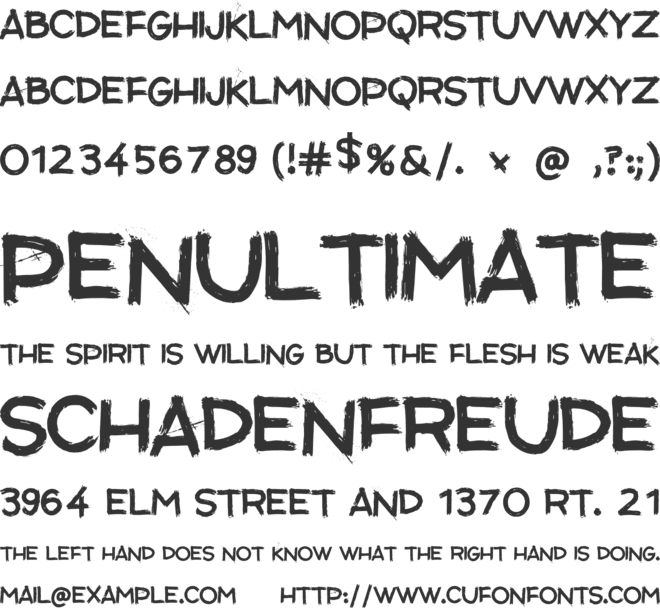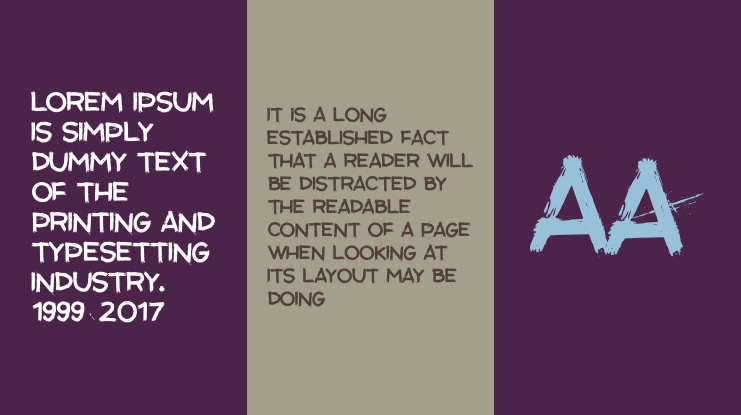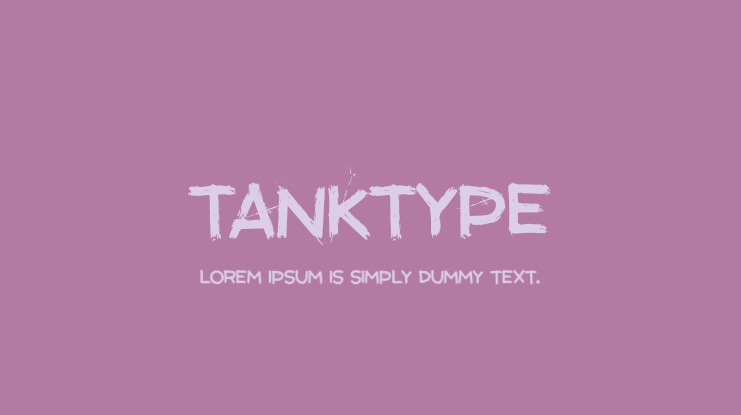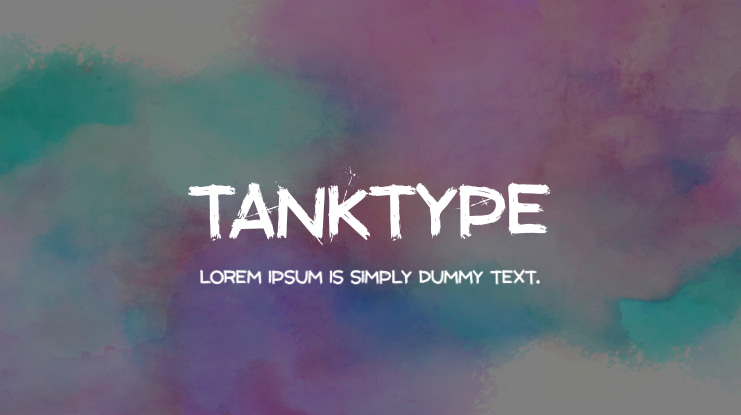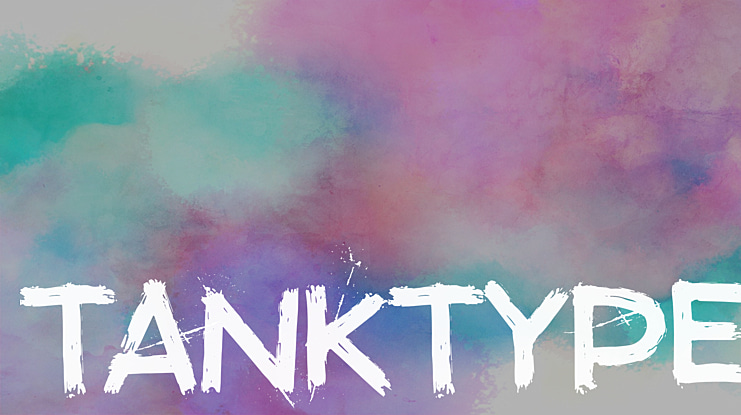
TANKTYPE Font
Tanktype - Painted by hand brush. Grunge military font for decorations. Font bursting with energy, quick strokes, and sharp edges. Ideal for loud messages.